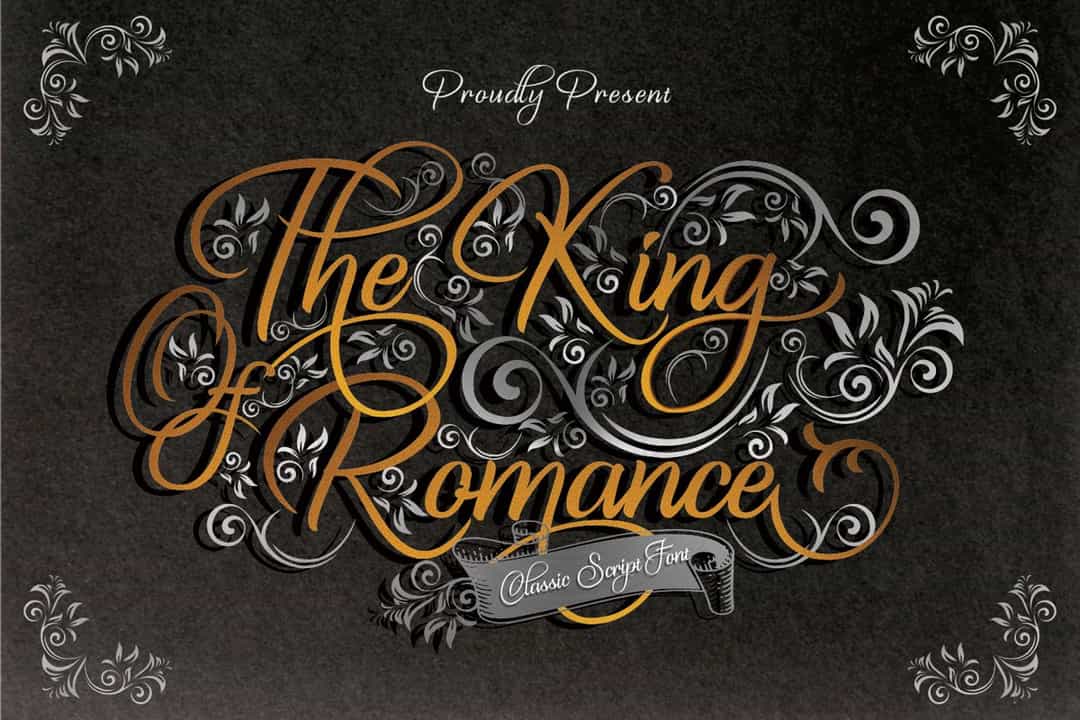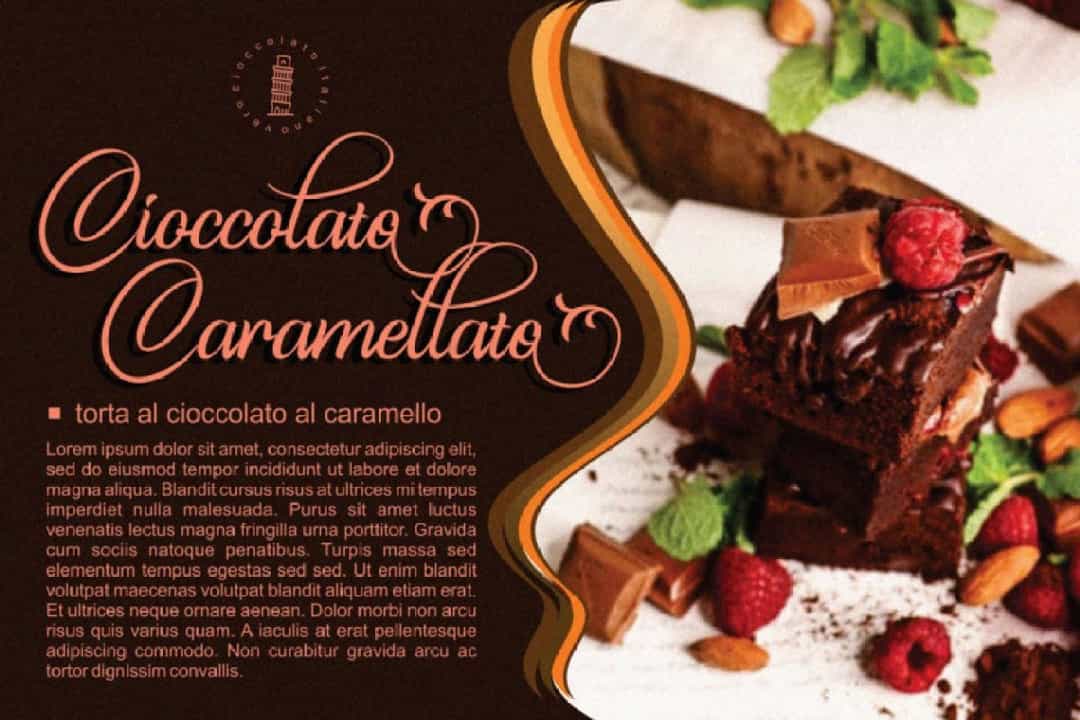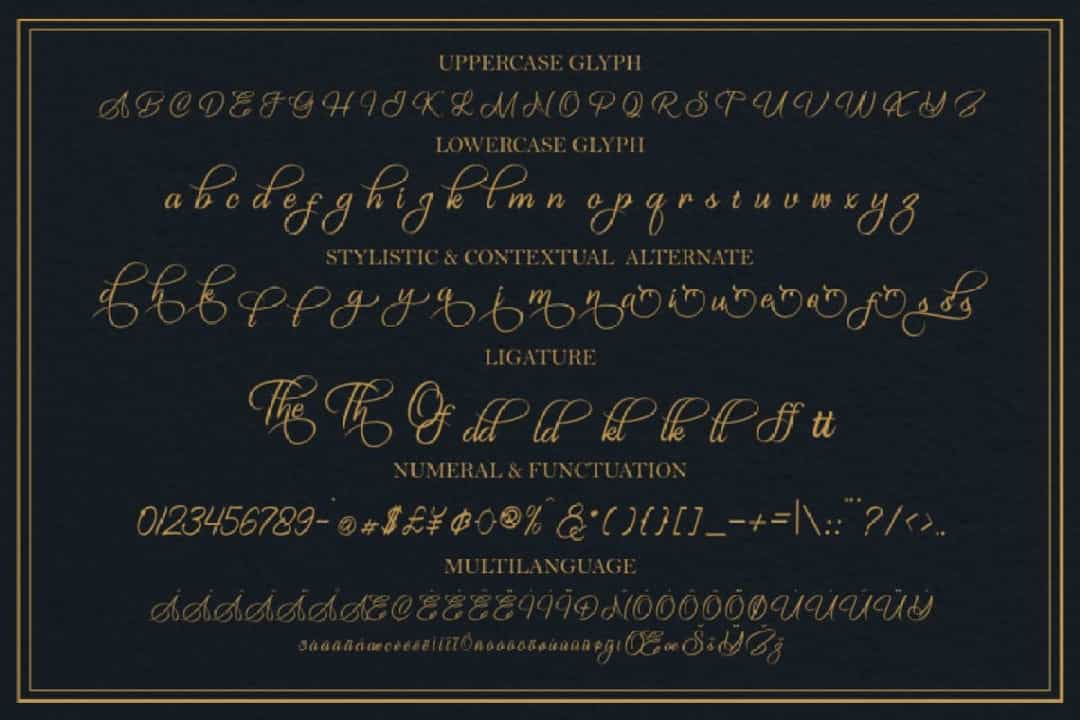
The King Of Romance calligraphy font is an elegant and classic calligraphy style. Packed with different characters and ligatures to further make this font eye-catching, include it in any creative project to make the King Of Romance stand out!